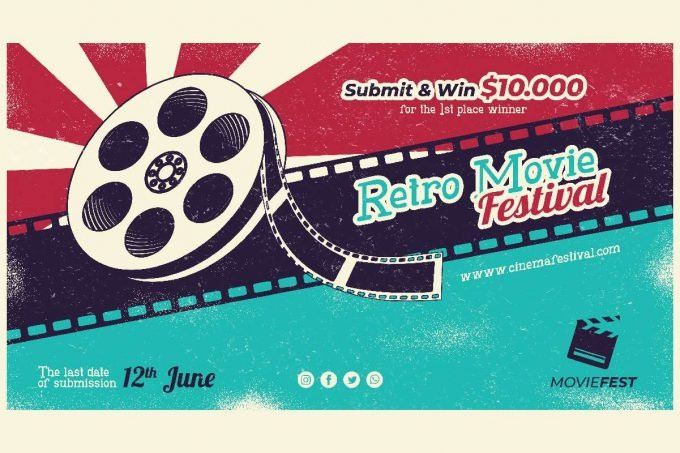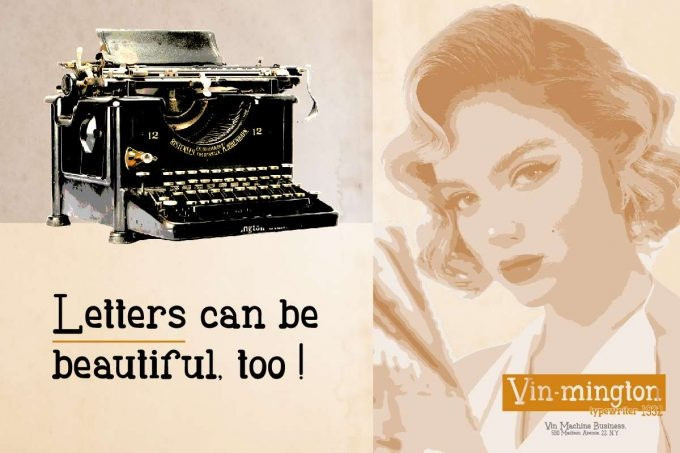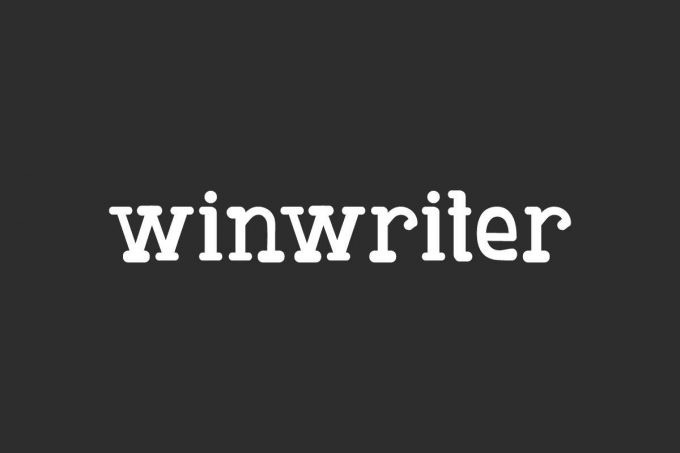
Winwriter Font
Winwriter Display Font is a new typewriter display font with a more stylish look. It has a great vintage touch while still has good readability and would be great for mimicking the effect of type writing older machines. The font will be suitable for any project : brand logo, headline, mockup design, newspaper, stationery, website, and many more!
Winwriter Font fits perfectly into those nostalgic mood boards and vintage logos. This font includes set of Uppercase Basic Characters, Numerals and Punctuation. Winwriter Font will be suitable for many industries, such as bank, event or festival, fashion, film, government, movie, news, printing, publishing, etc.